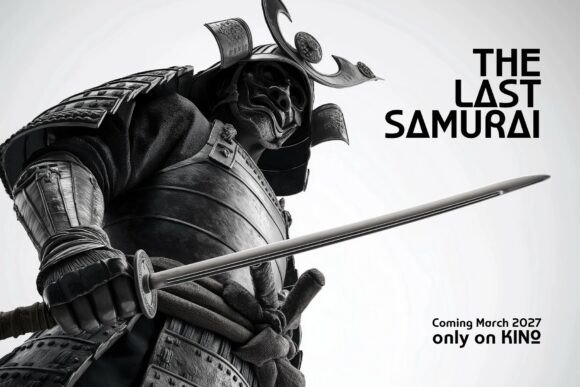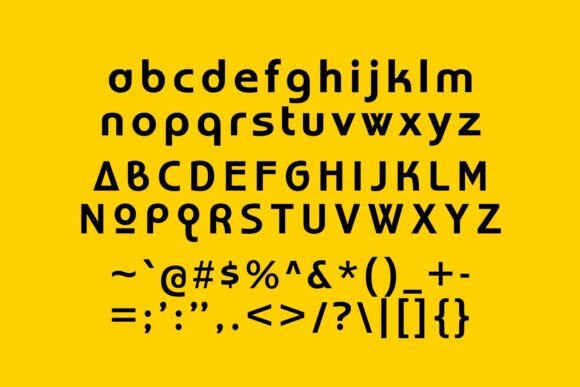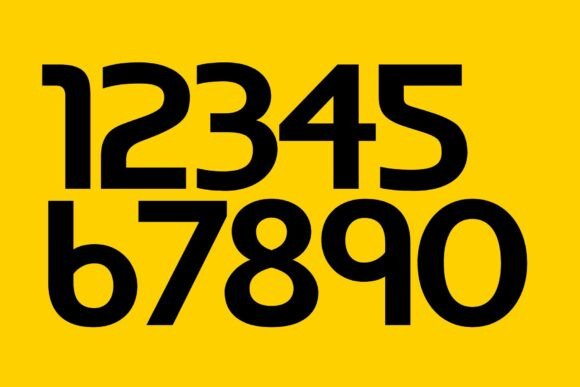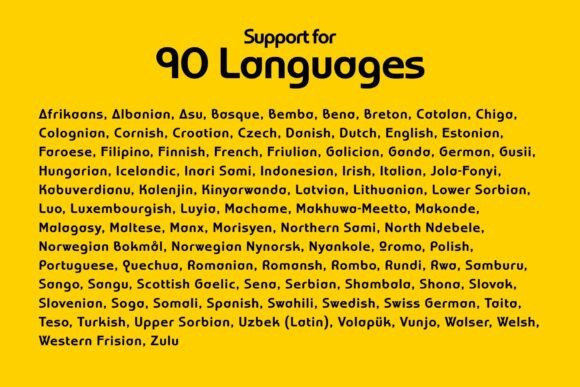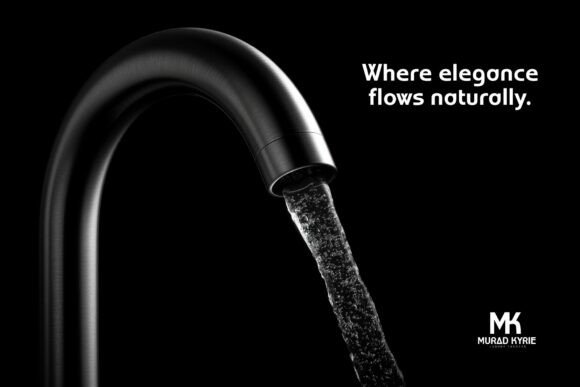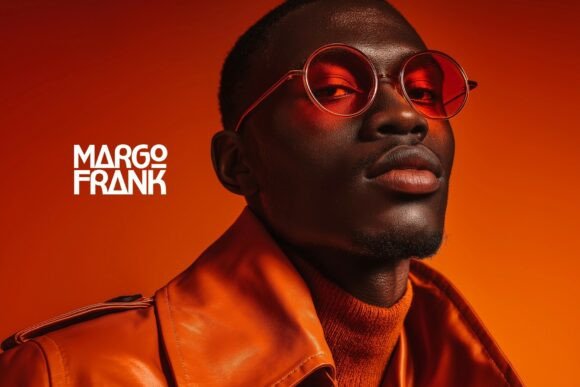
I still remember the frustration of working on a high-end branding project, only to hit a roadblock: finding the right font. My client wanted something sleek, sophisticated, and timeless, but everything I tried seemed to fall flat. That’s when I stumbled upon the Astro Signal font, and it was like a breath of fresh air. In this article, I’ll share my experience with this striking geometric sans-serif typeface and explore its features, applications, and potential limitations.
First Impressions: What I Love About Astro Signal
Here’s what immediately drew me to Astro Signal:
- ✨ **Clean lines and balanced proportions**: Astro Signal’s geometric design makes it perfect for projects that demand clarity and precision.
- ✅ **Luxurious aesthetic**: This font exudes sophistication and elegance, making it ideal for high-end branding, fashion editorial work, and cutting-edge graphic design.
- 🌎 **Global versatility**: With support for 90 languages and 393 glyphs, Astro Signal is an excellent choice for projects with international reach.
- 💻 **PUA-encoded**: This feature ensures that the font is compatible with a wide range of design software.
No font is perfect, and Astro Signal has a few minor limitations:
- 🤔 **Limited italic variations**: While Astro Signal offers a range of weights and styles, the italic variations are somewhat limited.
- ⚠️ **Occasional kerning issues**: As with any font, some users may experience kerning issues, particularly when using certain character combinations.
The Designer’s Inspiration: A Backstory
While the true story behind Astro Signal’s creation remains a mystery, it’s easy to imagine a designer driven by a passion for clean lines, geometric shapes, and luxurious aesthetics. Perhaps they were inspired by the sleek, modernist architecture of the 20th century or the futuristic visions of science fiction. Whatever the inspiration, Astro Signal is a testament to the power of good design.
| What is the primary use for Astro Signal? | Astro Signal is designed for high-end branding, fashion editorial work, and cutting-edge graphic design. |
| Is Astro Signal suitable for body text? | While Astro Signal is primarily designed for headlines and titles, it can be used for body text in certain contexts, such as luxury publications or high-end marketing materials. |
| Can I use Astro Signal for web design? | Yes, Astro Signal is optimized for digital use and can be used for web design, including headings, titles, and UI elements. |
| Is Astro Signal available in multiple weights? | Yes, Astro Signal comes in a range of weights, making it versatile for various design applications. |
In conclusion, Astro Signal is a statement of professionalism, luxury, and modern design excellence. With its clean lines, balanced proportions, and luxurious aesthetic, it’s the perfect choice for designers, crafters, and creative hobbyists looking to elevate their projects with confidence and style.